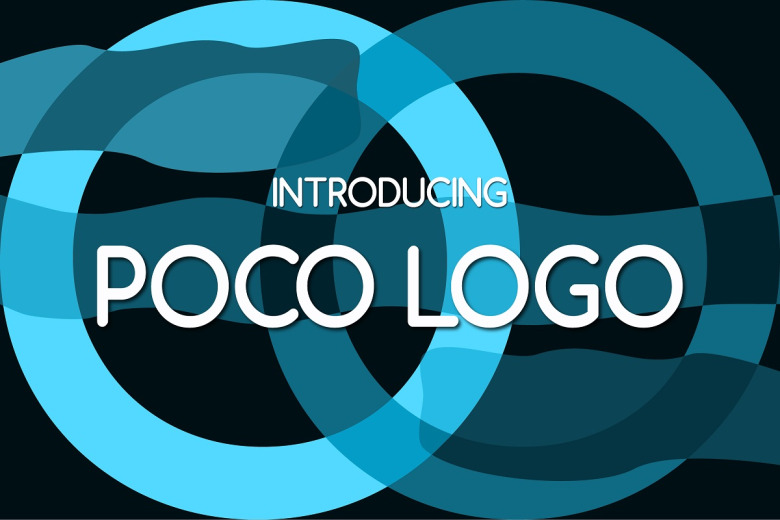
Poco Logo Font
Poco Logo is a classic sans serif font of low contrast, characterized by well-balanced proportions. Uppercase letters of the typeface were historical Roman Inscriptional Capital ones, and lowercase ones, and their proportions are modeled according to the old style serif.
This font may also do well for clamping and stand-alone letterheed artworkseature a set of alternate character for workspace if you find it not enough. Use the collection of font weights to create a perfect pair of characters.